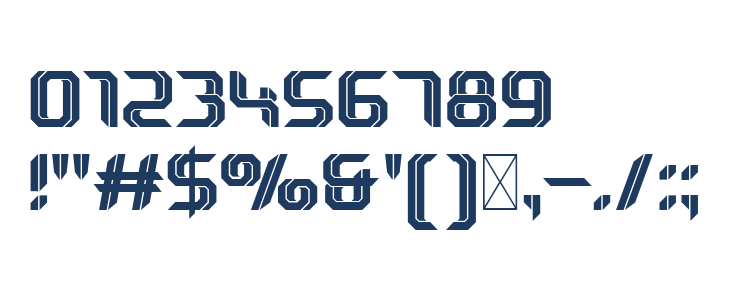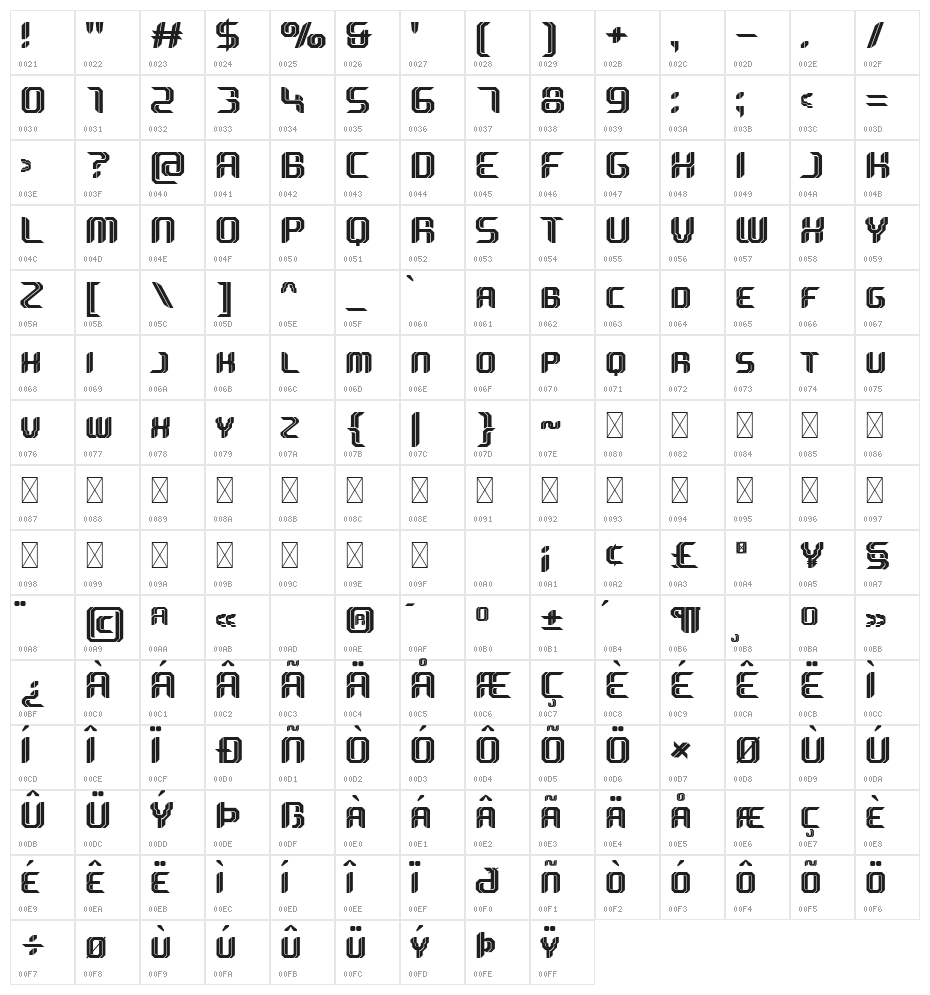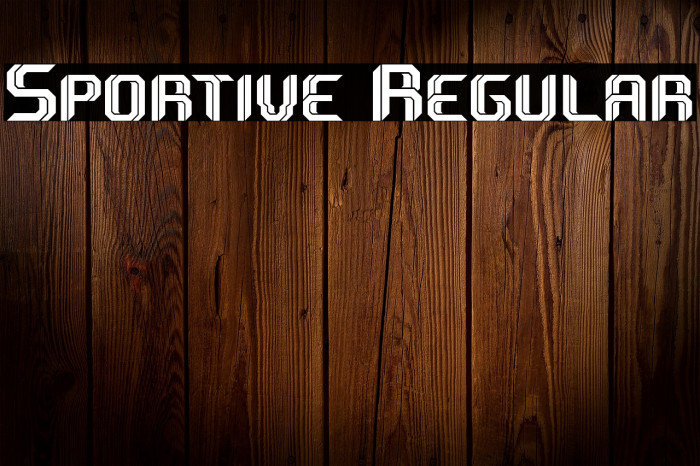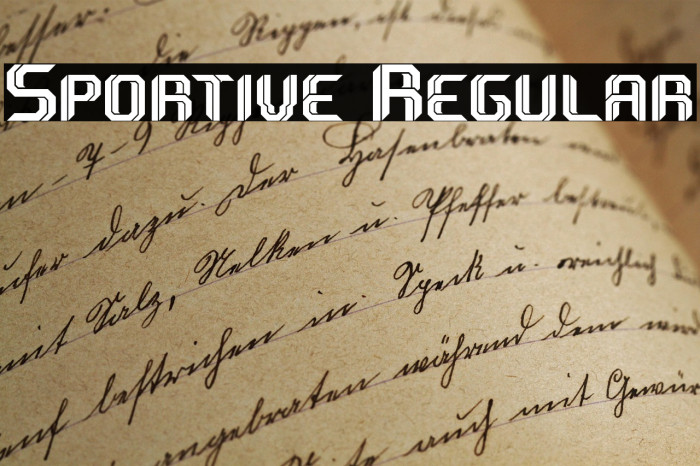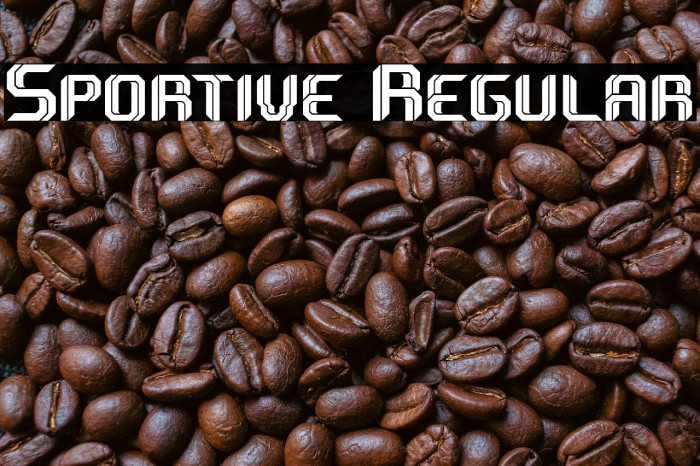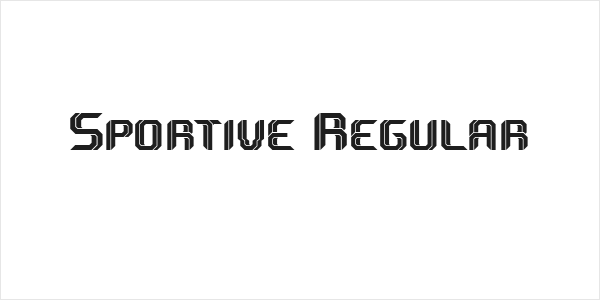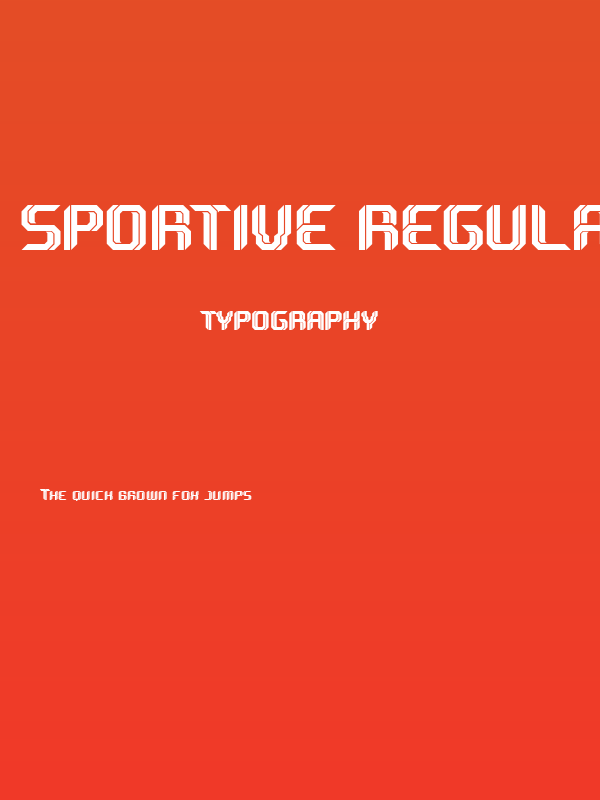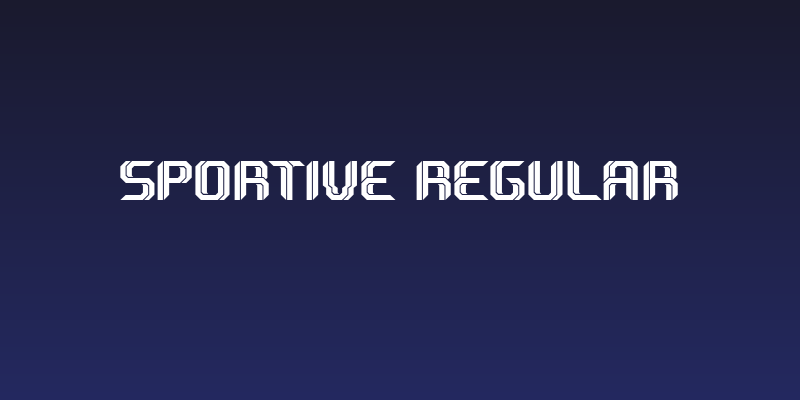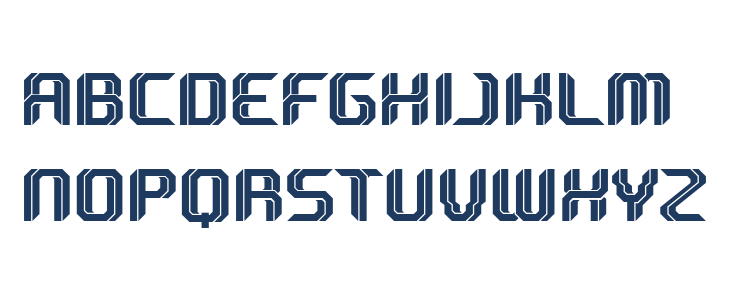
Sportive Regular Font
Sportive Regular Description
This font features a bold, geometric design with a sporty and futuristic aesthetic. The characters are constructed with angular lines and sharp edges, creating a sense of movement and dynamism. The uppercase and lowercase letters maintain a consistent style, with uniform stroke widths and a blocky appearance. The numerals and special characters follow the same design principles, ensuring a cohesive look across all glyphs. This font is ideal for projects that require a modern and energetic feel, such as sports branding, technology-related designs, or dynamic headlines.
| Proposed Projects | Ideal for sports branding, technology designs, dynamic headlines, and modern advertising. |